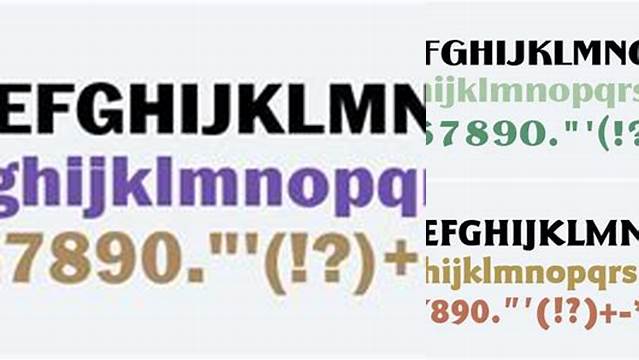
Hey guys! Ever needed that perfect bold and impactful font for your design project? You know, something that screams international sophistication? Well, you've landed in the right spot! We're diving deep into the world of international black fonts, exploring where to find them for free, and how to use them to make your projects pop. From sleek sans-serifs to elegant serifs, we'll cover it all. So, grab a coffee, get comfy, and let's get font-astic!
1. What are International Black Fonts?
International black fonts, simply put, are fonts designed with a bold or extra-bold weight that support a wide range of languages and character sets. This means they can display characters from various scripts like Latin, Cyrillic, Greek, and sometimes even more complex writing systems like Chinese, Japanese, or Korean. These fonts are crucial for projects that need to reach a global audience, ensuring your message looks consistent and professional across different languages. When selecting international black fonts, it's important to check which languages and character sets are supported to ensure compatibility with your specific needs. Using a font that doesn't support all the required characters can lead to display issues, such as missing characters or the use of fallback fonts, which can disrupt the overall design.
4. Best International Black Fonts for Web Design
For web design, readability and performance are key, making certain international black fonts more suitable than others. Sans-serif fonts like Roboto, Open Sans, and Montserrat are excellent choices due to their clean and modern appearance, as well as their wide language support. Roboto, in particular, is a very popular font for web use, designed by Google and optimized for screen readability across various devices. Open Sans is another versatile option, known for its friendly and approachable design, making it suitable for a wide range of websites. Montserrat offers a slightly more geometric and contemporary feel, making it a great choice for brands looking to convey a modern and stylish image. When selecting a black font for the web, it's important to consider its weight and how it will render on different browsers and devices. A font that appears bold on one screen might appear too heavy on another, so testing is essential. Additionally, consider the font's file size, as larger font files can slow down website loading times. Using font formats like WOFF and WOFF2, which are optimized for web use, can help improve performance. Services like Google Fonts automatically provide these optimized formats, making it easier to use international black fonts on your website without sacrificing speed.
5. Top International Black Fonts for Print
When it comes to print design, the choice of international black fonts can significantly impact the final product. Fonts like Oswald, Bebas Neue, and Lato are popular choices for print materials due to their strong, legible letterforms and availability in bold weights. Oswald, a reworking of the classic gothic typeface, is particularly well-suited for headlines and posters, providing a bold and impactful presence. Bebas Neue, a clean and modern sans-serif, is another excellent option for headlines and titles, offering a sleek and professional look. Lato, a sans-serif typeface with semi-rounded details, provides a warm and friendly feel, making it suitable for body text as well as headings in print materials. Unlike web design, where screen rendering can affect how fonts appear, print design requires careful consideration of the font's actual printed appearance. Factors like ink spread and paper quality can influence the final result, so it's important to test print samples before committing to a font for a large print run. Choosing international black fonts that are well-hinted and optimized for print can help ensure crisp and clear text, even at smaller sizes. Additionally, consider the font's kerning and letter spacing to avoid any awkward gaps or overlaps in the printed text.
8. Incorporating International Black Fonts in Web Development
Incorporating international black fonts into web development projects requires a slightly different approach compared to using them in graphic design software. To ensure your chosen font displays correctly on a website, you'll typically need to use CSS (Cascading Style Sheets) to specify the font family for various elements. The most common way to include fonts in a website is by using the @font-face rule in CSS. This allows you to define the font's name, source file (e.g., .woff, .woff2), and other properties, such as font weight and style. Services like Google Fonts provide code snippets that you can copy and paste into your CSS file to easily include their fonts on your website. When using international black fonts for the web, it's crucial to optimize the font files for performance. Using font formats like WOFF and WOFF2, which are specifically designed for web use, can significantly reduce file sizes and improve loading times. Additionally, consider using font subsets to include only the characters needed for your website's content. This can further reduce the file size and improve performance. It's also important to test your website across different browsers and devices to ensure your chosen font renders correctly and consistently.
9. Pairing International Black Fonts with Other Fonts
Pairing international black fonts with other fonts is an art that can elevate your design from good to great. The key is to create contrast and visual interest while maintaining readability and harmony. A common approach is to pair a bold black font with a lighter weight font or a different typeface altogether. For example, you might pair a bold sans-serif font like Montserrat Black with a lighter sans-serif like Open Sans for body text. This creates a clear visual hierarchy, with the black font drawing attention to headings and the lighter font providing a comfortable reading experience for longer text passages. Another approach is to pair a black sans-serif font with a serif font for a more traditional or elegant look. For instance, you could pair a bold sans-serif like Roboto Black with a serif font like Merriweather for body text. When pairing international black fonts, consider the overall tone and style of your design. If you're aiming for a modern and minimalist look, pairing two sans-serif fonts might be the best choice. If you're aiming for a more classic or sophisticated look, pairing a sans-serif with a serif font can be effective. Experiment with different combinations and font weights to find the perfect pairing for your project.
10. Using Black Fonts for Branding
International black fonts can be a powerful tool for branding, conveying a sense of strength, authority, and sophistication. A bold black font can make a strong statement, helping your brand stand out and leave a lasting impression. When selecting a black font for branding, consider your brand's personality and values. A clean and modern sans-serif font might be a good choice for a tech company, while a more traditional serif font might be better suited for a luxury brand. The key is to choose a font that aligns with your brand's identity and resonates with your target audience. In addition to logos and brand names, black fonts can be used effectively in marketing materials, website headers, and other brand communications. A consistent use of international black fonts across all your branding materials can help create a cohesive and recognizable brand identity. However, it's important to use black fonts strategically and in moderation. Overusing a black font can make your brand appear overwhelming or aggressive. Balance is key, and pairing a black font with lighter colors and fonts can help create a more balanced and visually appealing brand presence.
11. Exploring Serif Black Fonts for a Classic Look
For a classic and timeless aesthetic, serif international black fonts are an excellent choice. Serifs, the small strokes at the ends of letters, lend a sense of tradition, formality, and sophistication to typography. When used in black weights, these fonts exude a commanding presence that's perfect for conveying authority and reliability. Think of brands like The New York Times or Vogue – their use of serif fonts in their logos and headlines instantly communicates credibility and elegance. Some popular serif black fonts include Playfair Display Black, a modern take on the transitional serif style, and Lora Bold, a well-balanced serif font with roots in calligraphy. These fonts work wonders for headlines, titles, and even body text in print materials like books, magazines, and brochures. The strong contrast created by the thick strokes of the black weight and the delicate serifs adds a touch of refinement to any design. However, using serif international black fonts online can be a bit tricky. They might not always render as cleanly as sans-serif fonts on screens, especially at smaller sizes. So, it's essential to test how the font looks on different devices and browsers to ensure readability isn't compromised. When used correctly, serif black fonts can elevate your design, imbuing it with a sense of history and trustworthiness.
12. Sans-Serif Black Fonts for a Modern Feel
If you're aiming for a modern, clean, and contemporary vibe, sans-serif international black fonts are your best bet. Sans-serif fonts, meaning "without serifs," have a more streamlined and minimalist appearance compared to their serif counterparts. This makes them incredibly versatile and well-suited for a wide range of design applications, especially in the digital realm. When rendered in black weights, these fonts offer a bold and impactful presence that's perfect for grabbing attention and conveying a sense of confidence and innovation. Consider popular choices like Roboto Black, Open Sans Extra Bold, and Montserrat Black – these fonts are widely used in web design, branding, and advertising for their legibility and modern appeal. Sans-serif international black fonts are particularly effective for headlines, website navigation, and call-to-action buttons. Their clean lines and strong presence make them easy to read and understand, even at smaller sizes. This is crucial for ensuring a positive user experience, especially on mobile devices. When selecting a sans-serif black font, think about the overall tone and personality you want to project. A geometric sans-serif like Futura Black might convey a sense of technical precision, while a more humanist sans-serif like Lato Black might feel friendlier and more approachable. Experiment with different options to find the perfect fit for your project.
13. Black Fonts with Rounded Terminals for a Friendly Touch
For a more approachable and friendly aesthetic, consider using international black fonts with rounded terminals. Rounded terminals are the soft, curved ends of the strokes in letters, as opposed to the sharp, angular endings found in other fonts. This subtle detail can make a significant difference in the overall feel of your design, lending it a sense of warmth, playfulness, and accessibility. Black fonts with rounded terminals are particularly well-suited for brands that want to project a welcoming and trustworthy image, such as those in the healthcare, education, or childcare industries. Think of logos for children's products or websites promoting community services – rounded fonts often play a central role in creating a positive and engaging atmosphere. Popular examples of black fonts with rounded terminals include Nunito Sans Black, a versatile sans-serif font with a friendly demeanor, and Baloo Bhai 2 ExtraBold, a playful and energetic font that's perfect for headlines and titles. These fonts work well in both print and digital designs, offering excellent legibility and a touch of personality. When using international black fonts with rounded terminals, consider pairing them with other design elements that reinforce the friendly vibe, such as soft colors, playful illustrations, and approachable language. This holistic approach will help you create a cohesive and inviting brand identity.
14. Black Fonts with Sharp Angles for a Modern Edge
If you're aiming for a cutting-edge, modern, and dynamic look, international black fonts with sharp angles can be incredibly effective. Sharp angles in typography add a sense of energy, precision, and sophistication to your design. These fonts often convey a feeling of innovation, technology, and forward-thinking, making them ideal for brands in industries like tech, automotive, or fashion. Think of sleek logos for sports brands or websites for software companies – sharp-angled fonts often contribute to a feeling of speed, efficiency, and boldness. Popular choices in this category include Montserrat Alternates Black, a geometric sans-serif with sharp corners and clean lines, and Bebas Neue Bold, a tall and impactful sans-serif font with a modern aesthetic. These fonts are particularly well-suited for headlines, titles, and logos, where their sharp angles can make a strong visual statement. However, it's essential to use international black fonts with sharp angles judiciously. Overusing them can create a harsh or aggressive impression. Consider pairing them with softer elements, such as rounded fonts or organic shapes, to achieve a balanced and visually appealing design. When used strategically, sharp-angled black fonts can add a distinctive and memorable edge to your brand identity.
15. Condensed Black Fonts for Tight Spaces
When space is at a premium, condensed international black fonts are your secret weapon. Condensed fonts are designed with narrower letterforms, allowing you to fit more text into a limited area without sacrificing legibility. In black weights, these fonts offer a powerful and impactful presence, making them perfect for headlines, titles, and signage where you need to make a big statement in a small space. Think of posters, billboards, or website headers where you have a limited canvas – condensed black fonts can help you maximize the visual impact of your message. Popular choices include Oswald Black, a classic condensed sans-serif font that's widely used for web and print design, and Bebas Neue Bold, another excellent option for headlines and titles. These fonts are designed to be highly legible, even at small sizes, making them versatile for a wide range of applications. When using condensed international black fonts, it's important to pay attention to letter spacing and kerning to ensure readability. Tight letter spacing can make the text feel cramped and difficult to read, while too much spacing can weaken the visual impact. Experiment with different settings to find the optimal balance for your design. Condensed black fonts can also be used creatively to create visual contrast and hierarchy, drawing the viewer's eye to key information.
16. Expanded Black Fonts for Maximum Impact
On the flip side, when you want to make a massive visual impact, expanded international black fonts are the way to go. These fonts feature wider letterforms, creating a sense of boldness, grandeur, and authority. Expanded black fonts are ideal for situations where you want to command attention and convey a feeling of power and importance. Think of movie posters, album covers, or advertising campaigns where you need to make a statement that can't be ignored – expanded fonts can deliver that impact. Some excellent choices in this category include Impact, a classic expanded sans-serif font that's known for its bold and assertive presence, and Anton, a modern sans-serif with a distinctive expanded design. These fonts are particularly effective for headlines, titles, and logos, where their wide letterforms can create a strong visual anchor. When using expanded international black fonts, it's important to consider the context of your design. They can be overwhelming if used excessively, so it's often best to reserve them for key elements and pair them with more restrained fonts for body text. Also, pay attention to the spacing between letters and words, as expanded fonts can sometimes feel crowded if not properly spaced. When used strategically, expanded black fonts can add a sense of drama and impact to your design, making it truly unforgettable.
17. Black Letter Fonts (Gothic) for a Historical Touch
For a touch of historical elegance and a sense of tradition, explore international black fonts in the blackletter or gothic style. Blackletter fonts, also known as gothic or Old English fonts, are characterized by their ornate, angular letterforms that evoke the calligraphy of medieval scribes. These fonts have a rich history and are often associated with formal documents, religious texts, and traditional branding. When used in black weights, blackletter fonts exude a powerful and dignified presence, making them perfect for projects that require a touch of gravitas and sophistication. Think of diplomas, certificates, or branding for high-end products – blackletter fonts can add a sense of prestige and authenticity. Some popular blackletter international black fonts include Fraktur, a classic German blackletter font, and Cloister Black, a more contemporary take on the traditional style. These fonts are particularly effective for headlines, titles, and logos, where their ornate letterforms can create a striking visual statement. However, blackletter fonts can be challenging to read in large blocks of text, so they're best used sparingly and for shorter messages. Also, consider the cultural context of blackletter fonts, as they can sometimes be associated with specific historical periods or cultural movements. When used thoughtfully, blackletter fonts can add a unique and memorable touch to your design, transporting your audience to another era.
18. Script Black Fonts for a Personal Feel
To infuse your designs with personality, warmth, and a personal touch, consider using script international black fonts. Script fonts mimic the flowing strokes of handwriting, adding a sense of elegance, creativity, and individuality to your typography. When used in black weights, script fonts can create a striking visual contrast, making them perfect for headlines, invitations, and branding that aims to connect with the audience on an emotional level. Think of wedding invitations, greeting cards, or branding for artisanal products – script fonts can convey a sense of care, craftsmanship, and personal connection. There's a wide variety of script international black fonts available, ranging from formal and elegant styles to casual and playful options. Some popular choices include Great Vibes, a formal script font with beautiful swashes and flourishes, and Pacifico, a casual script font with a friendly and approachable feel. When using script fonts, it's crucial to consider legibility. Ornate script fonts can be challenging to read in large blocks of text, so they're best used sparingly and for shorter messages. Also, pay attention to the spacing between letters and words, as script fonts can sometimes feel crowded if not properly spaced. Experiment with different weights and styles to find the perfect script font that reflects your brand's personality and resonates with your audience.
19. Display Black Fonts for Unique Designs
For designs that demand attention and originality, display international black fonts are your go-to choice. Display fonts are designed to be eye-catching and distinctive, often featuring unique letterforms, exaggerated details, or unconventional styles. These fonts are perfect for situations where you want to make a bold statement and create a memorable visual impact. Think of posters, packaging, or branding where you need to stand out from the crowd – display fonts can help you achieve that goal. The world of display international black fonts is incredibly diverse, encompassing a wide range of styles, from geometric and futuristic to vintage and whimsical. Some popular choices include Bungee Shade, a bold and industrial display font, and Playfair Display Black, a modern serif font with a touch of elegance. When using display fonts, it's important to consider their legibility and context. Display fonts are often best used sparingly and for shorter messages, as their unique letterforms can be challenging to read in large blocks of text. Also, pay attention to the overall tone and style of your design, ensuring that the display font complements the other elements and reinforces your message. Display fonts are a powerful tool for creating unique and memorable designs, but they should be used with intention and care.
20. Monospace Black Fonts for a Technical Look
If you're aiming for a technical, coding-inspired, or retro aesthetic, monospace international black fonts can be a fantastic choice. Monospace fonts, also known as fixed-width fonts, are characterized by letters that each occupy the same horizontal space. This creates a consistent and uniform appearance, reminiscent of typewriters and old computer terminals. Monospace fonts are often associated with coding, programming, and technical documentation, but they can also be used creatively in design projects that aim to evoke a sense of nostalgia or precision. When used in black weights, monospace fonts can create a strong and impactful visual statement, making them perfect for headlines, subheadings, and code snippets. Some popular monospace international black fonts include Courier New Bold, a classic monospace font that's widely used for coding and legal documents, and Roboto Mono Bold, a modern and versatile monospace font that's part of the Roboto family. When using monospace fonts, it's important to consider their legibility and context. Monospace fonts can sometimes feel less readable than proportional fonts (where letters have varying widths), so they're best used for shorter messages or in situations where their unique aesthetic is the primary goal. Also, pay attention to the spacing between letters and words, as monospace fonts can sometimes feel crowded if not properly spaced.
21. How to Preview Fonts Before Downloading
Before you commit to downloading a bunch of international black fonts, it's crucial to preview them to ensure they're the right fit for your project. Imagine spending time downloading and installing a font only to realize it doesn't quite match your vision! Thankfully, many websites and tools offer font preview capabilities, saving you time and effort. Google Fonts, for example, allows you to type in custom text and see how it looks in different font styles and sizes directly on their website. This is a fantastic way to get a feel for how a font will work with your specific content. Font Squirrel also provides a preview feature, allowing you to test fonts with your own text and adjust settings like font size and letter spacing. Some online tools even let you upload an image of your design and preview the font within your context. For a more in-depth preview, consider using font management software like FontBase or NexusFont. These tools allow you to browse your entire font library, preview fonts with custom text, and even compare different fonts side-by-side. Previewing international black fonts before downloading is an essential step in the design process, ensuring you make informed choices and select the perfect typography for your project.
22. Creating Font Combinations with Black Fonts
Creating effective font combinations is a key skill in design, and mastering it with international black fonts can elevate your projects significantly. Pairing fonts well involves considering factors like contrast, hierarchy, and overall tone. The goal is to create a visual harmony that enhances readability and reinforces your message. A classic approach is to pair a bold black font with a lighter-weight font from the same family. For example, you might use Montserrat Black for headlines and Montserrat Regular for body text. This creates a clear visual hierarchy while maintaining a consistent style. Another popular technique is to combine a black sans-serif font with a serif font. This contrast can add visual interest and sophistication to your design. For instance, you could pair Open Sans Extra Bold with Merriweather Regular. When combining international black fonts, consider the personality you want to convey. A geometric black font paired with a humanist sans-serif can create a modern and approachable feel, while a black serif font paired with a script font can evoke a sense of elegance and tradition. Experiment with different combinations, and don't be afraid to break the rules to create something unique and memorable. Remember, the best font combinations are those that serve your design goals and enhance your message.
23. Using Black Fonts in Logos and Branding Materials
International black fonts play a crucial role in creating strong and memorable logos and branding materials. A well-chosen black font can convey a sense of authority, sophistication, and timelessness. Think of iconic brands like Chanel or The New York Times – their use of black fonts in their logos reflects their established reputations and high standards. When selecting a black font for your logo, consider your brand's personality and values. A bold sans-serif font might be ideal for a tech company, conveying innovation and modernity. A classic serif font, on the other hand, might be a better fit for a luxury brand, evoking tradition and elegance. The key is to choose a font that aligns with your brand identity and resonates with your target audience. In addition to logos, black fonts are also effective in other branding materials, such as business cards, brochures, and website headers. A consistent use of international black fonts across all your branding elements helps create a cohesive and recognizable brand identity. However, it's important to use black fonts strategically and in moderation. Overusing a black font can make your brand appear overwhelming or aggressive. Balance is key, and pairing a black font with lighter colors and fonts can help create a more balanced and visually appealing brand presence.
24. Legibility Considerations for Black Fonts
While international black fonts are excellent for making a statement, legibility is paramount. A beautiful font is useless if people can't easily read it! Several factors influence the legibility of black fonts, including font size, letter spacing, and the context in which the font is used. Smaller font sizes can be challenging to read in black, especially on screens. Ensure the font remains clear and crisp even at smaller sizes. Letter spacing, or kerning, plays a crucial role. Too little spacing makes the text feel cramped, while too much makes it appear disjointed. Experiment with letter spacing to find the sweet spot. The background and surrounding elements also affect legibility. Black fonts work best against light backgrounds, providing high contrast. Avoid using black fonts on dark or busy backgrounds, as this can strain the eyes. When choosing international black fonts, consider the intended use. A bold font might be perfect for a headline but overwhelming for body text. Select a font that's appropriate for the amount of text and the reading experience you want to create. Always test your font choices on different devices and browsers to ensure they render well and maintain legibility. Prioritizing legibility ensures your message is communicated effectively and your design is accessible to a wider audience.
25. Common Mistakes to Avoid When Using Black Fonts
Using international black fonts effectively requires a bit of finesse. There are some common pitfalls that can detract from your design. One of the biggest mistakes is overusing black fonts. A design dominated by black can feel heavy and overwhelming. Use black fonts strategically for emphasis, not as the default for everything. Another common error is pairing too many bold fonts together. This creates visual chaos and dilutes the impact of each font. Stick to a maximum of two font families and use different weights to create contrast and hierarchy. Neglecting letter spacing and line height can also hinder readability. Ensure the text is comfortable to read by adjusting these settings appropriately. Using black fonts on dark backgrounds is another no-no. The low contrast makes the text difficult to read and strains the eyes. Always opt for light backgrounds when using black fonts. Finally, failing to test your font choices across different devices and browsers can lead to unexpected results. Ensure your international black fonts render well and maintain legibility on all platforms. By avoiding these common mistakes, you can harness the power of black fonts to create stunning and effective designs.
26. The Psychology of Black Fonts in Design
Did you know that the international black fonts you choose can influence how people perceive your message? Font psychology is a fascinating field that explores how different typefaces evoke specific emotions and associations. Black fonts, in particular, carry a powerful psychological weight. They are often associated with strength, authority, and sophistication. A bold black font can convey a sense of confidence and professionalism, making it ideal for brands that want to project an image of competence and reliability. Black is also linked to elegance, luxury, and timelessness. This is why you often see black fonts used in branding for high-end products and services. However, black can also evoke feelings of mystery, seriousness, and even sadness. It's important to consider the context of your design and the overall message you want to convey. Using black fonts sparingly and in combination with other colors and fonts can help balance its psychological impact. When selecting international black fonts, think about the emotions you want to evoke in your audience and choose typefaces that align with those feelings. Understanding the psychology of fonts can help you create designs that are not only visually appealing but also emotionally resonant.
27. Future Trends in Black Font Design
The world of typography is constantly evolving, and international black fonts are no exception. What are the trends shaping the future of black font design? One prominent trend is the continued exploration of geometric sans-serif fonts. These fonts, characterized by their clean lines and minimalist forms, offer a modern and versatile aesthetic. Expect to see more variations on this style, with designers experimenting with different weights, widths, and details. Another trend is the resurgence of vintage and retro fonts. These typefaces, often inspired by the typography of the mid-20th century, add a touch of nostalgia and personality to designs. Black weights are particularly effective in vintage fonts, creating a bold and impactful look. Variable fonts are also gaining traction. These fonts allow designers to adjust various parameters, such as weight, width, and slant, within a single font file. This offers unprecedented flexibility and customization, opening up new possibilities for black font design. Finally, the focus on legibility and accessibility will continue to drive font design. Expect to see more international black fonts that are optimized for readability across different devices and platforms. Staying abreast of these trends can help you make informed choices about your typography and create designs that are both stylish and effective.
28. Creating a Font Library for Black Fonts
For designers and creatives, a well-organized font library is an invaluable asset. Building a curated collection of international black fonts can save you time and effort on future projects. How do you create and maintain an effective font library? Start by identifying your needs and preferences. What types of projects do you typically work on? What styles of fonts do you find yourself using most often? This will help you narrow your focus and avoid accumulating unnecessary fonts. Download fonts from reputable sources like Google Fonts, Font Squirrel, and Adobe Fonts. These platforms offer high-quality fonts with clear licensing terms. Organize your fonts into folders based on style, weight, or project type. This will make it easier to find the right font when you need it. Use a font management tool like FontBase or NexusFont to preview, activate, and deactivate fonts. These tools can streamline your workflow and prevent font clutter. Regularly review your font library and remove fonts you no longer use. This will keep your collection manageable and prevent performance issues. Back up your font library to an external drive or cloud storage service. This will protect your fonts in case of a computer crash or other unforeseen events. Building a comprehensive font library of international black fonts is an investment that will pay off in the long run, empowering you to create stunning and effective designs with ease.
29. Black Fonts and Accessibility Considerations
Accessibility is a crucial aspect of design, and choosing international black fonts that are readable and inclusive is essential. Designing with accessibility in mind ensures that your message reaches the widest possible audience, including individuals with visual impairments or other disabilities. When selecting black fonts, prioritize legibility. Choose fonts with clear letterforms and adequate spacing. Avoid overly decorative or stylized fonts that may be difficult to read. Ensure sufficient contrast between the font color and the background. Black fonts work best on light backgrounds, providing maximum contrast. Avoid using black fonts on dark or busy backgrounds. Consider font size. Smaller font sizes can be challenging to read, especially for individuals with low vision. Use larger font sizes or adjust the zoom settings to improve readability. Use font weights strategically. While bold black fonts can be effective for emphasis, avoid overusing them, as they can be overwhelming for some readers. Provide alternative text for images and graphics that contain text. This allows screen readers to convey the information to visually impaired users. Test your font choices with accessibility tools and guidelines. This will help you identify and address any potential issues. By incorporating accessibility considerations into your font selection process, you can create designs that are inclusive and engaging for everyone. Prioritizing accessibility is not only ethical but also enhances the overall user experience.
30. Black Fonts for Different Cultural Contexts
When working with international black fonts, it's essential to consider the cultural context. Typography can carry different meanings and associations in different cultures, and choosing fonts that are culturally appropriate can enhance your message and avoid unintended offense. Some fonts, like blackletter or gothic styles, have strong historical and cultural associations. While they may evoke a sense of tradition and elegance in some contexts, they can also be associated with specific historical periods or cultural movements, which may not be appropriate for all audiences. Consider the target audience's language and writing system. Ensure that the international black fonts you choose support the necessary characters and glyphs for the language you're using. Be mindful of cultural sensitivities. Certain fonts or typographic styles may be associated with specific cultural or religious groups, and using them inappropriately could be perceived as insensitive or disrespectful. Research and understand the cultural context of your design. If you're unsure about a particular font or style, consult with a cultural expert or conduct user testing with your target audience. Use fonts that are widely recognized and accepted in the target culture. This will help ensure that your message is clear and effective. By considering cultural contexts when selecting international black fonts, you can create designs that are not only visually appealing but also culturally sensitive and appropriate. Respecting cultural nuances in typography is crucial for effective communication and global design.